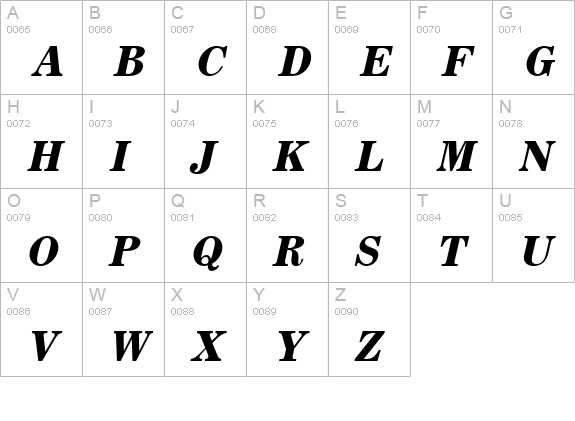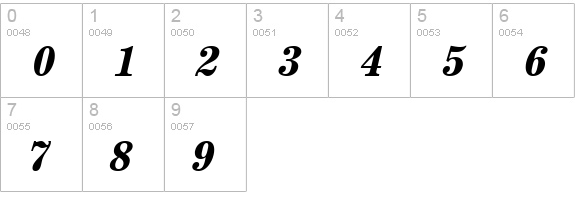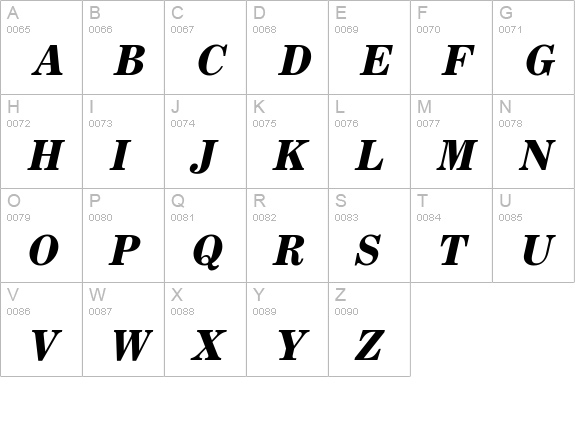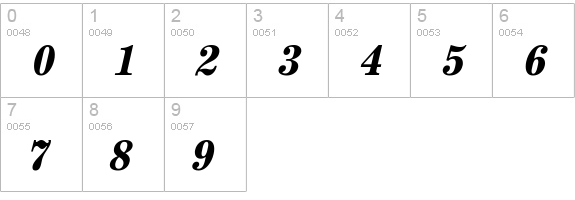
Sachem Bold-Oblique Font Details
Sachem Bold-Oblique is a strong, high-contrast, italic variant in the Sachem typeface family \xE2\x80\x94 well suited to headlines, attention-grabbing titles, and strong calls-to-action.
Sachem Bold-Oblique is a striking and distinctive font that exudes confidence and elegance. This font is perfect for adding a touch of sophistication to any design project. With its bold and oblique style, Sachem Bold-Oblique commands attention and makes a bold statement. What sets Sachem Bold-Oblique apart is not only its aesthetic appeal but also the fact that it is available for free download at FontsMarket.com. That's right, this stunning font can be yours without having to spend a dime. Whether you are a professional designer looking to enhance your creations or simply a typography enthusiast seeking a unique font for personal use, Sachem Bold-Oblique is the ideal choice. Imagine the possibilities with this font at your fingertips. From eye-catching headlines to stylish logos, Sachem Bold-Oblique will elevate your designs to a whole new level. Its sleek and sharp edges combined with its slanted letterforms create a sense of movement and energy, making your text come alive on the page. Don't miss out on this incredible opportunity to enhance your design arsenal with Sachem Bold-Oblique. Download it for free today at FontsMarket.com and unlock a world of creative possibilities. Whether you're designing for print or digital platforms, this font will captivate your audience and leave a lasting impression. Experience the beauty and versatility of Sachem Bold-Oblique, all at no cost. Download it now and let your creativity soar. FontsMarket.com is proud to offer this incredible font for free, ensuring that everyone can enjoy its remarkable qualities. So why wait? Start creating with Sachem Bold-Oblique and leave a lasting impression with every design.